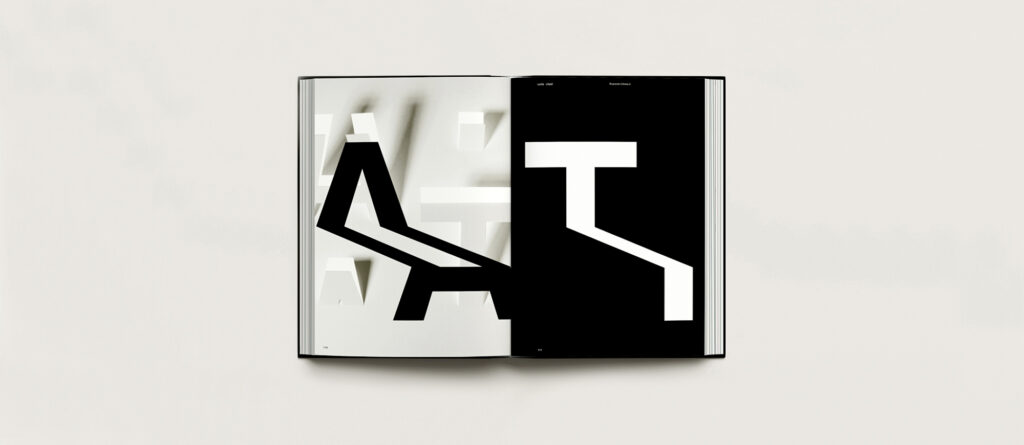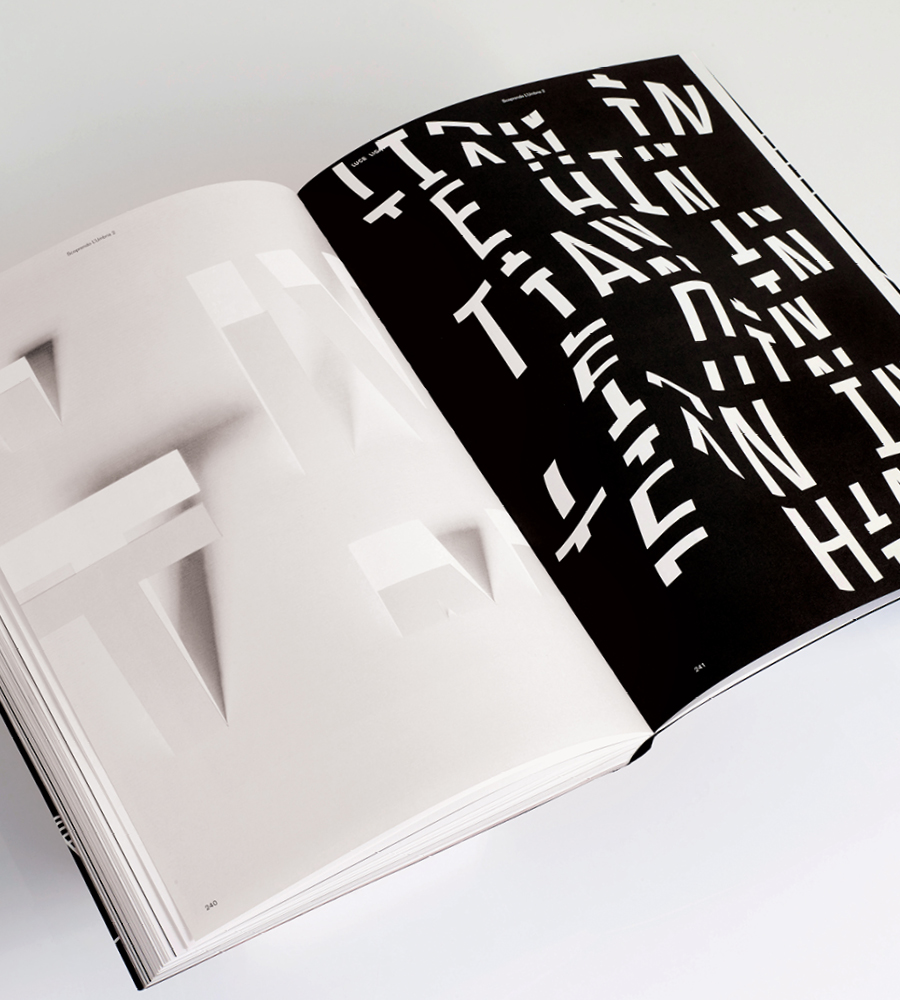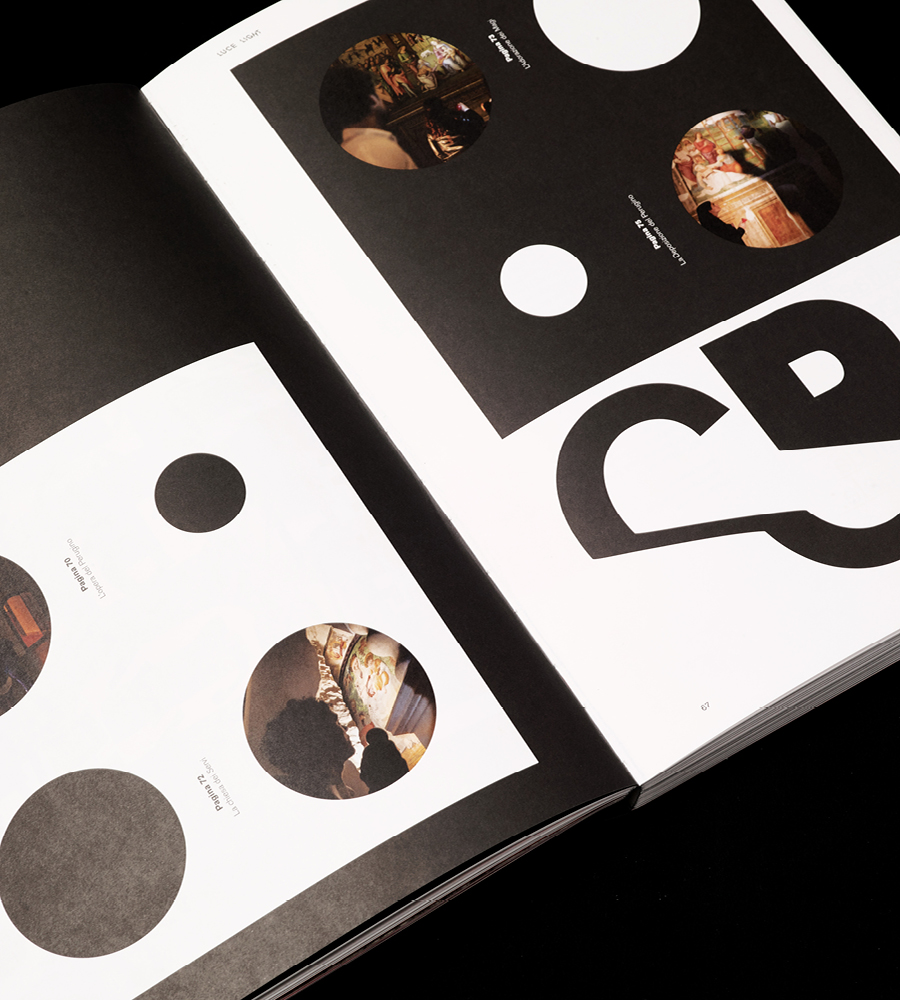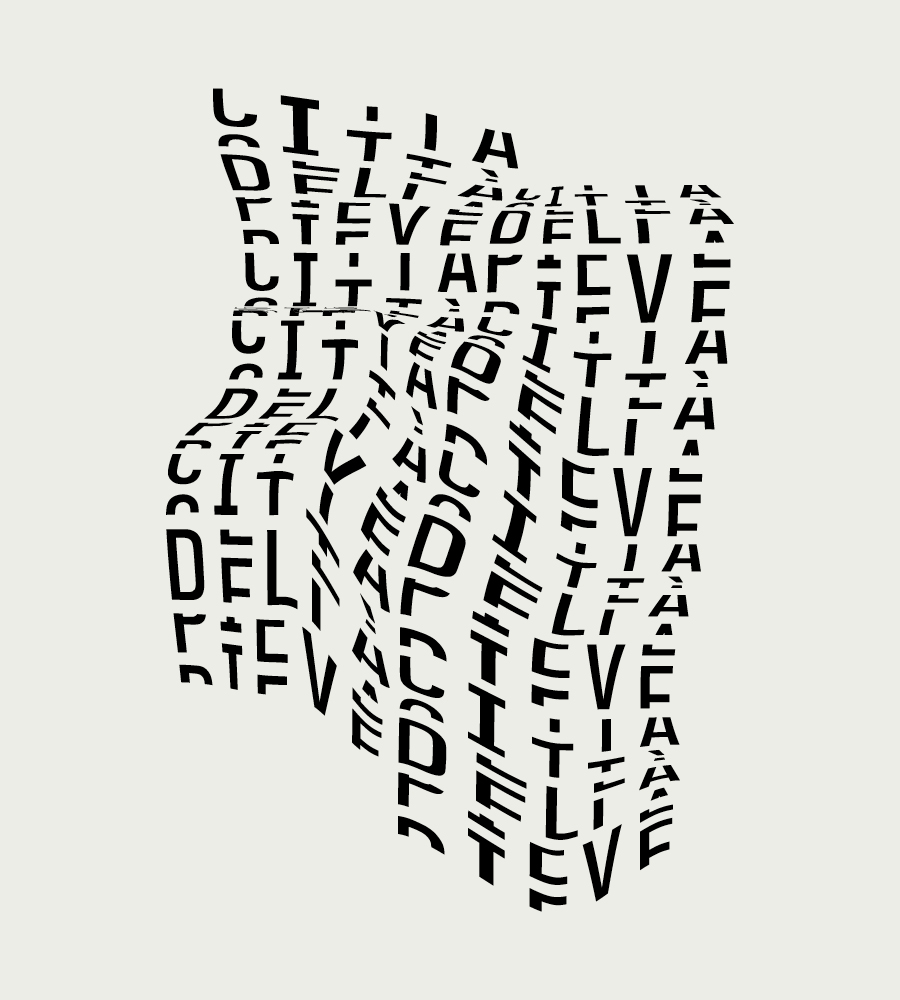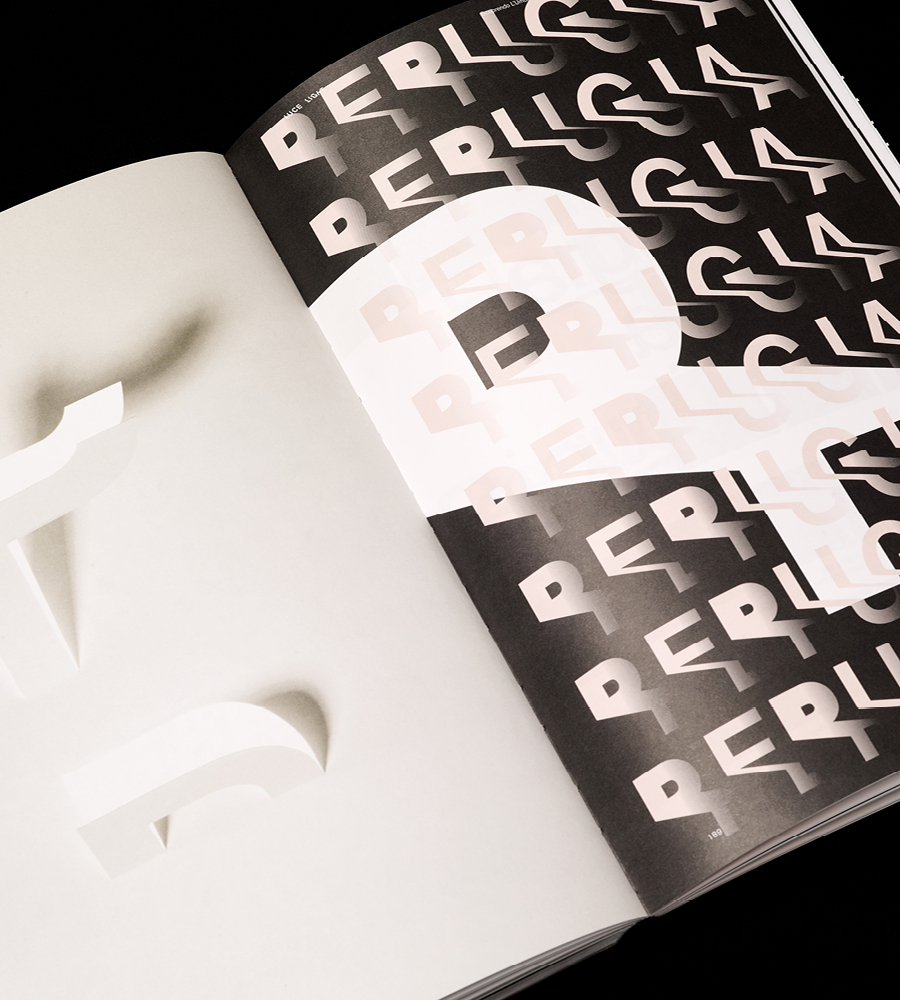
Light
Having been effected by the earthquake of 2016 the Regione, approached Salt & Pepper to identify, refocus and create a marketing tool to requalify and reinforce an optimistic public perception of the Region.
We developed a visual story telling throught the use of the photographs combined with bespoke designed typography, developed to strenghen the design aesthetics.